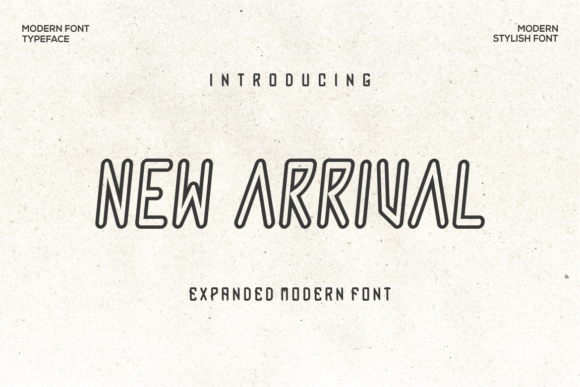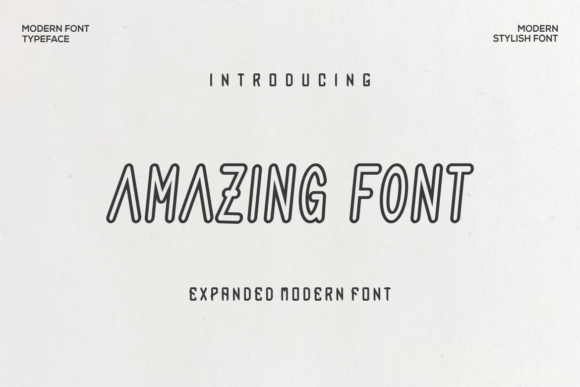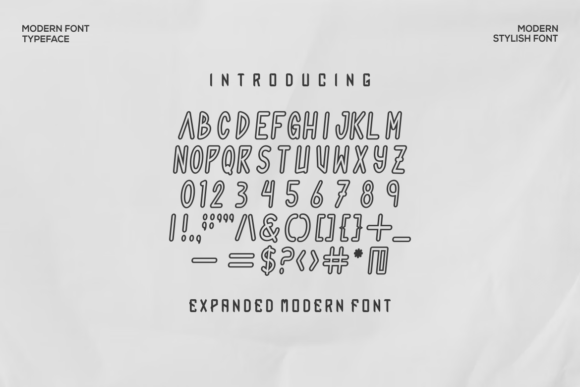
Introduction to Komiyeng Font
Have you ever stared at a blank canvas, waiting for the perfect font to bring your creative project to life? As designers, we’ve all been there – searching for that elusive combination of style, uniqueness, and versatility to elevate our work. And then, it happens. The perfect font emerges, and suddenly, our vision takes shape. For those who have been searching, we’re excited to introduce the Komiyeng Font, a bold and authentic display font designed to make a lasting impression.
What sets Komiyeng Font apart is its ability to thrive in a variety of contexts, from logos and t-shirt printing to creative products and more. With its modern design and high-quality features, this font is a valuable addition to any designer’s toolkit. Whether you’re working on a personal project or a client’s brief, Komiyeng Font is sure to deliver.
Key Features of Komiyeng Font
- Unique, hand-drawn design for a creative project
- Perfect design resource for graphic designers, digital artists, and creatives
Honest Review: Komiyeng Font
I recently had the chance to work with the Komiyeng Font, and I must say it’s been a great addition to my design resource library. I downloaded it for free, and I was impressed by its high quality and unique style.
- ✨ Unique and creative style that can add a personal touch to any design project
- ✨ High quality and crisp font that looks great even at larger sizes
- ✨ Transparent background makes it easy to use in designs with complex backgrounds
- ✨ Great for creative projects that require a bold and eye-catching font
- ⚠️ Limited font styles available (only a few weights and styles)
- ⚠️ Not ideal for projects that require a large font library
Overall, I’m very impressed with the Komiyeng Font. Its unique style and high quality make it a great addition to any design resource library. While it may have some limitations, I think it’s well worth the free download. I would definitely recommend it to anyone looking for a creative and bold font for their next project.
How to Use Komiyeng Font
Tips for Getting the Most Out of the Komiyeng Font
To get the most out of the Komiyeng Font, use it with a transparent background to create a seamless design. You can also experiment with different font sizes and styles to add visual interest to your design project.
Common Use Cases for the Komiyeng Font
The Komiyeng Font is suitable for a variety of creative projects, including logo design, branding, and marketing materials. Its high-quality design and transparent background make it a versatile design resource for designers and non-designers alike.